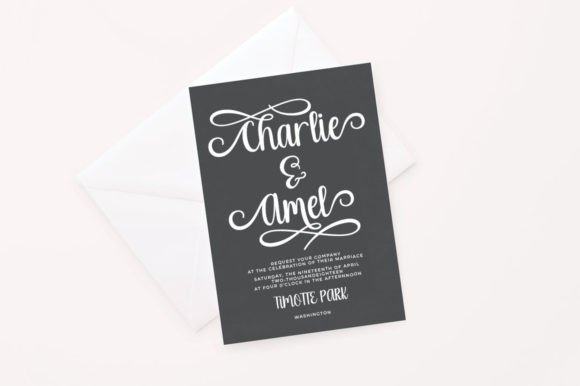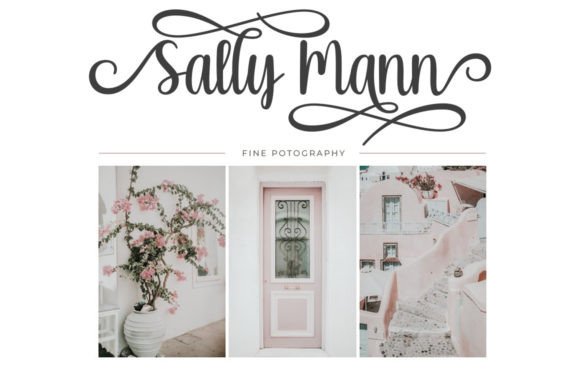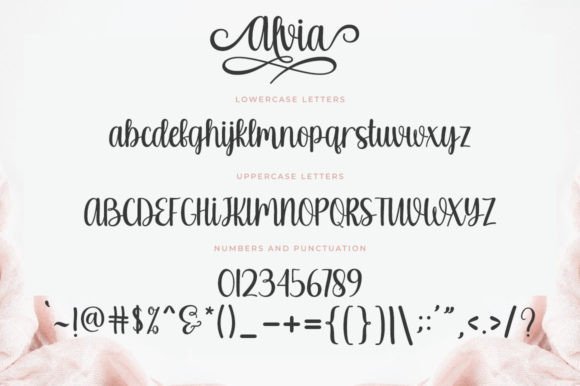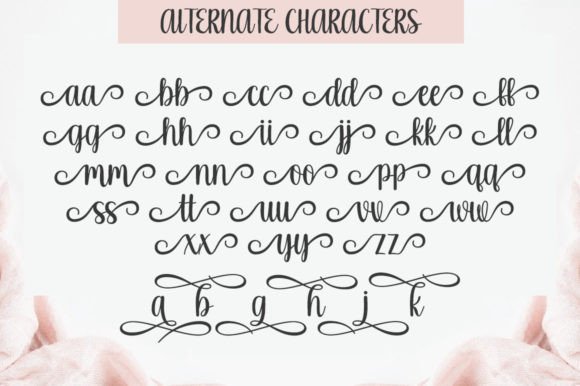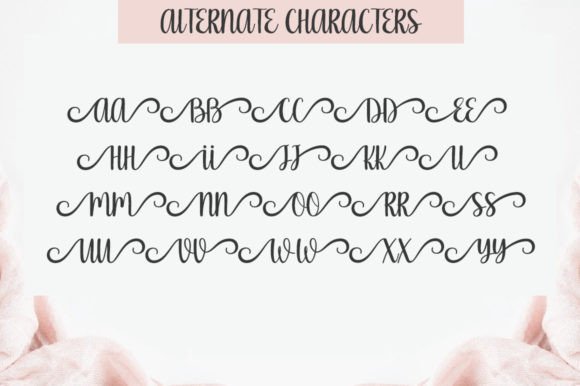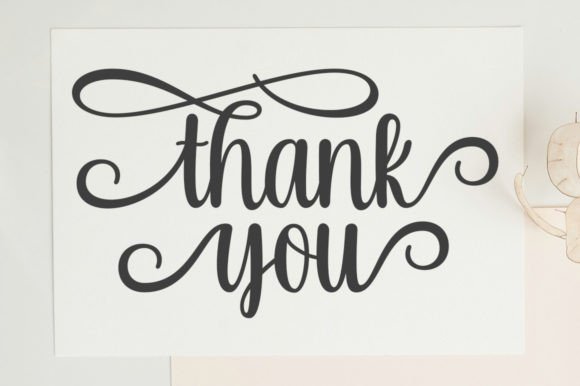
Introducing Alvia Font: Elevate Your Designs with Elegance and Sophistication
In the world of typography, a good font can make all the difference in transforming a design from ordinary to extraordinary. For designers and crafters looking for a clean, modern script font that exudes elegance, Alvia Font is an excellent choice. With its carefully crafted letters and touch of sophistication, Alvia Font is perfect for a wide range of creative projects, from letters and invitations to headlines and more.
What is Alvia Font?
Alvia Font is a modern script font designed to bring a touch of elegance to any design project. Its clean lines, flowing curves, and precise craftsmanship make it an ideal choice for designers seeking a sophisticated and refined look. Whether you’re working on a wedding invitation, a branding campaign, or a creative writing project, Alvia Font is sure to impress.
Key Features of Alvia Font
- Clean and Modern Design: Alvia Font boasts a clean and modern design that is perfect for contemporary designs.
- Elegant and Sophisticated: With its flowing curves and precise craftsmanship, Alvia Font exudes elegance and sophistication.
- Versatile: Alvia Font can be used for a wide range of creative projects, from letters and invitations to headlines and more.
- Easy to Read: Despite its elegant design, Alvia Font is easy to read, making it perfect for body text and headlines.
Uses of Alvia Font
Alvia Font is a versatile font that can be used in a variety of creative projects, including:
- Wedding Invitations: Add a touch of elegance to your wedding invitations with Alvia Font.
- Branding and Advertising: Use Alvia Font to create sophisticated and refined branding and advertising materials.
- Headlines and Titles: Alvia Font is perfect for headlines and titles, adding a touch of elegance to any design.
- Creative Writing: Use Alvia Font to add a touch of sophistication to your creative writing projects, such as poetry or short stories.
Benefits of Using Alvia Font
Using Alvia Font in your design projects offers several benefits, including:
- Unique and Creative: Alvia Font is a unique and creative font that will set your designs apart from the rest.
- Elegant and Sophisticated: Alvia Font adds a touch of elegance and sophistication to any design.
- High-Quality: Alvia Font is a high-quality font that is designed to produce crisp and clear results.
Tips for Using Alvia Font
To get the most out of Alvia Font, here are some tips to keep in mind:
- Use it Sparingly: Use Alvia Font sparingly to add a touch of elegance to your designs.
- Pair it with Other Fonts: Pair Alvia Font with other fonts to create a unique and creative look.
- Experiment with Different Sizes: Experiment with different sizes to find the perfect fit for your design.
- Pay Attention to Kerning: Pay attention to kerning to ensure that your text looks professional and polished.
In conclusion, Alvia Font is a clean, modern script font that is carefully crafted with a touch of elegance. With its versatile design and wide range of uses, Alvia Font is perfect for designers and crafters looking to add a touch of sophistication to their creative projects. Whether you’re working on a wedding invitation, a branding campaign, or a creative writing project, Alvia Font is sure to impress.